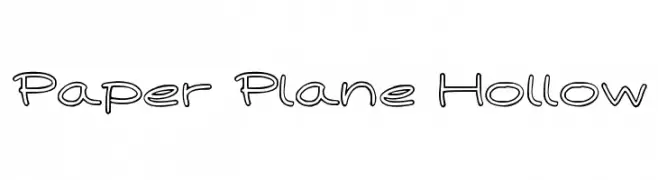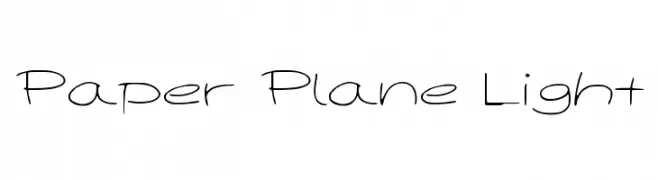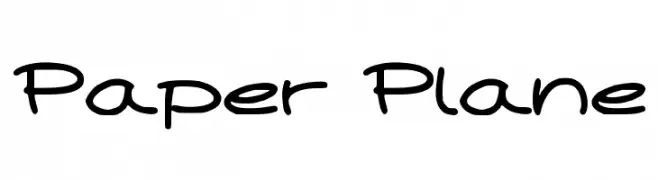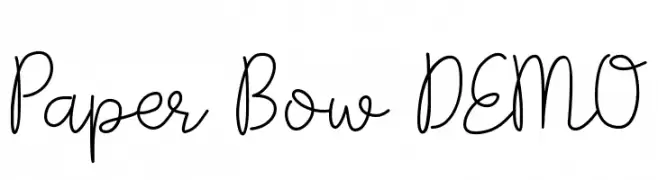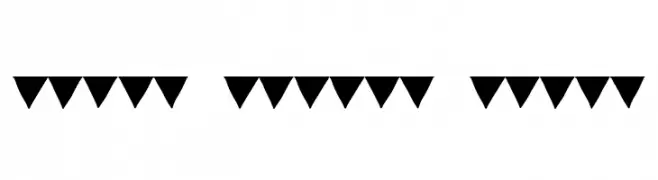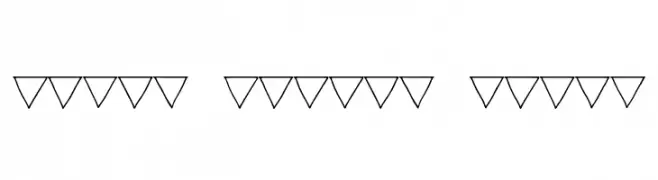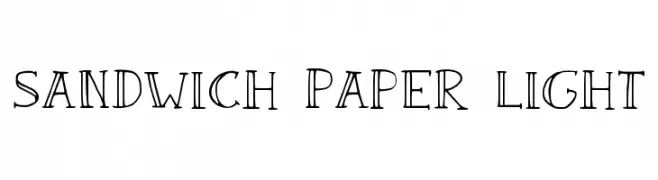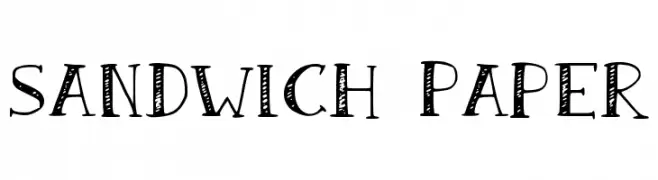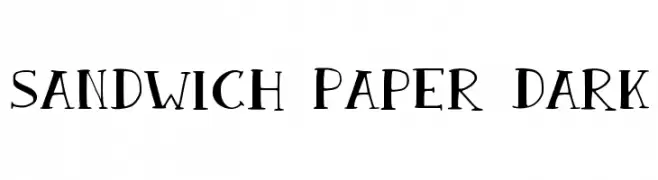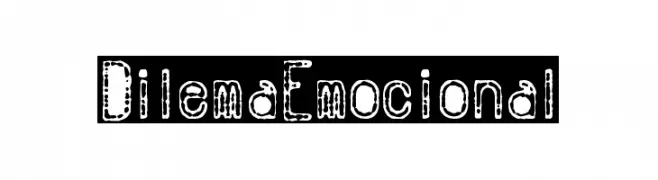
A playful, hollow outlined font with smooth, rounded edges and consistent stroke width.
A playful, handwritten-style font with thin, consistent strokes and a casual feel.
A playful, handwritten font with smooth curves and a casual style.
A playful and whimsical script font with smooth, flowing lines and elegant curves.
A playful, decorative font with characters inside triangular banners.
A playful, decorative font with characters in triangular banners.
A playful, handwritten font with a casual and whimsical style.
A sophisticated serif font with elegant, thin strokes and slight serifs.
A playful, hand-drawn font with whimsical, uneven strokes and artistic detailing.
A modern serif font with sharp, angular serifs and high contrast strokes.
A distressed, hand-drawn font with bold outlines and textured interiors.
A playful font with characters designed as stylized faces, perfect for creative and humorous projects.
A playful, monster-themed decorative font with unique character designs.
A playful, robot-themed decorative font with unique character designs.
A bold, industrial-style font with geometric shapes and sharp angles.
A decorative font with characters resembling playful faces and abstract shapes.
A playful, dot-based font with a bubbly and textured appearance.
A playful, bubbly font with rounded, interconnected shapes and a bold, uniform appearance.
A dotted, pixelated font with a modern and playful aesthetic.
A playful, robot-themed font with geometric shapes and a futuristic style.
A playful, robot-themed decorative font with bold, stylized characters.
A rugged, distressed font with a vintage western feel.
A decorative font with bold characters enclosed in boxes, featuring a marquee light style.
A playful, hand-drawn style font with bold, energetic strokes.
A geometric, angular font with a modern and futuristic style.